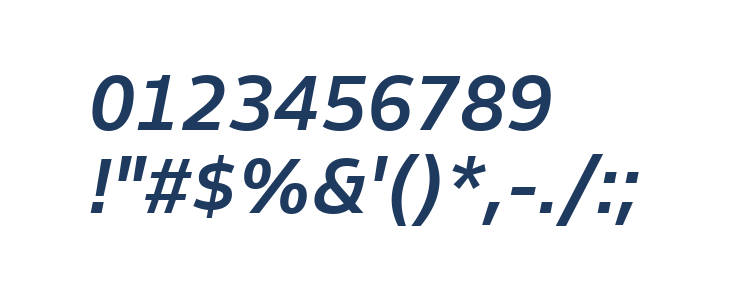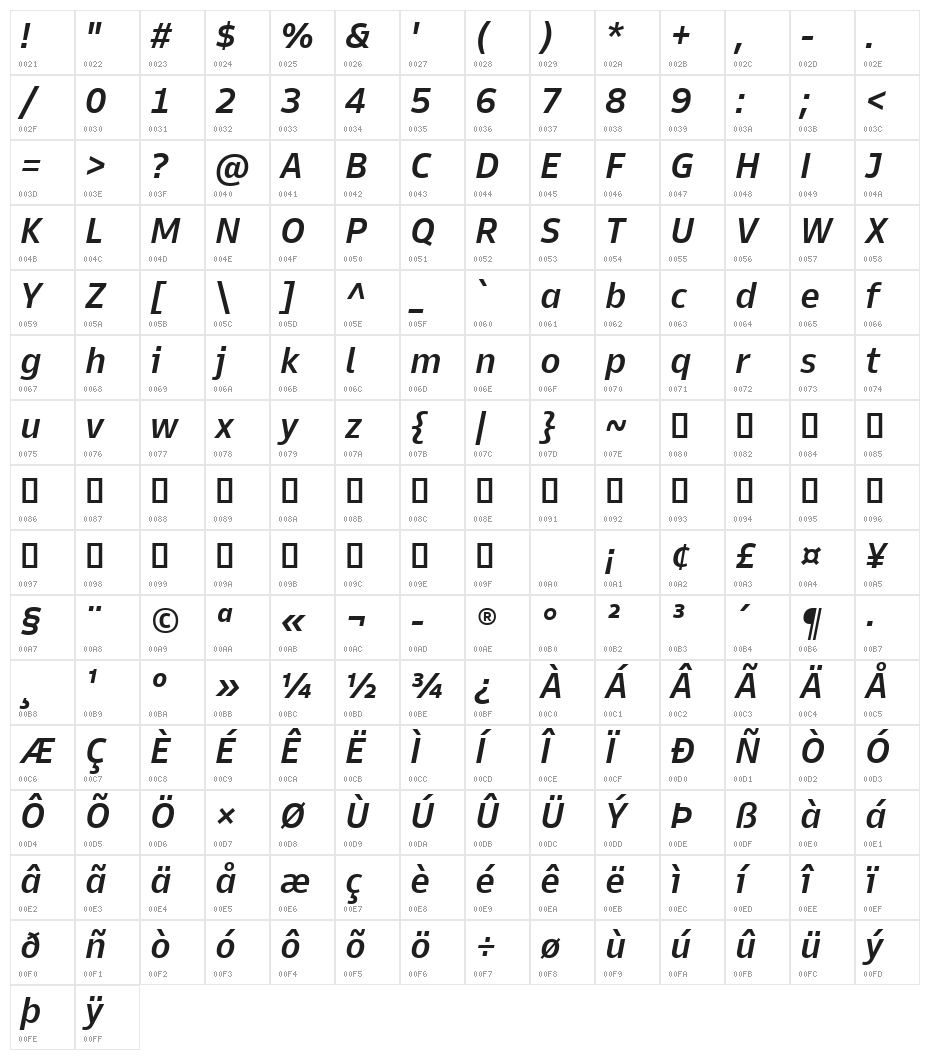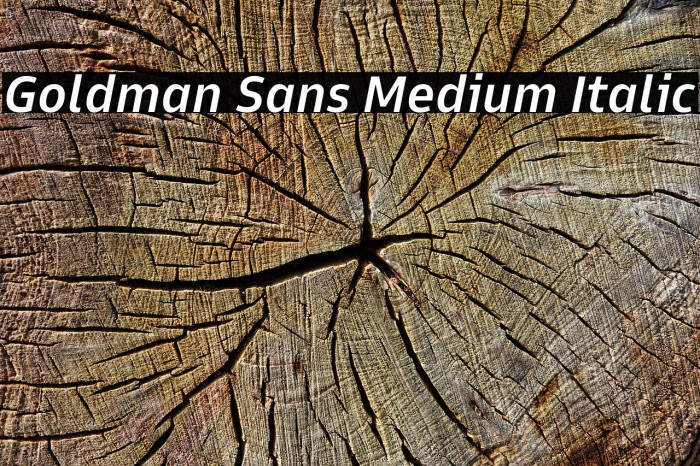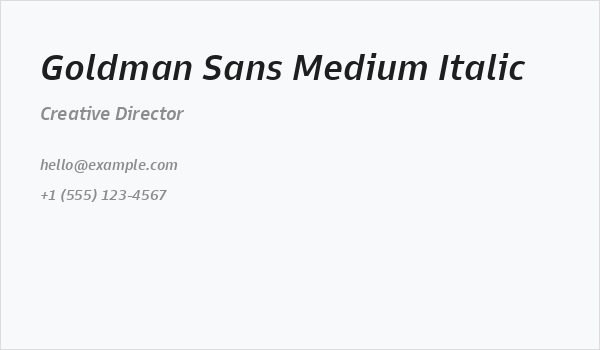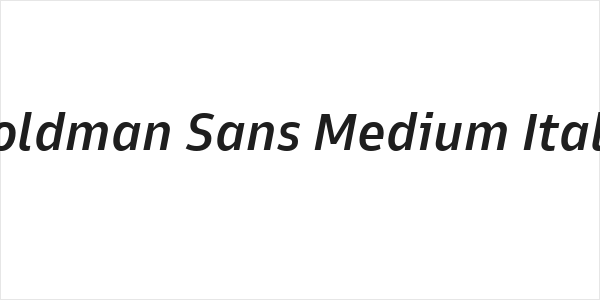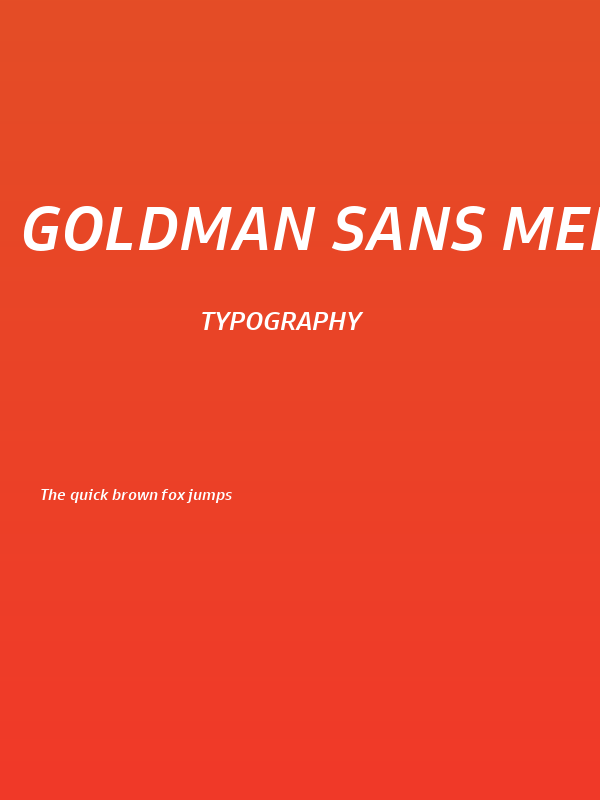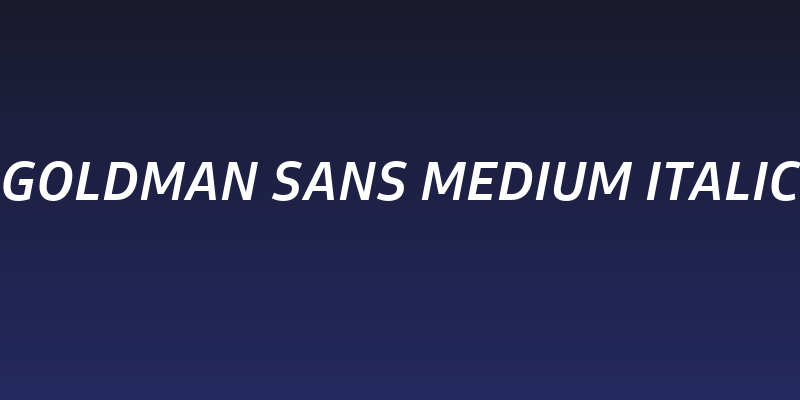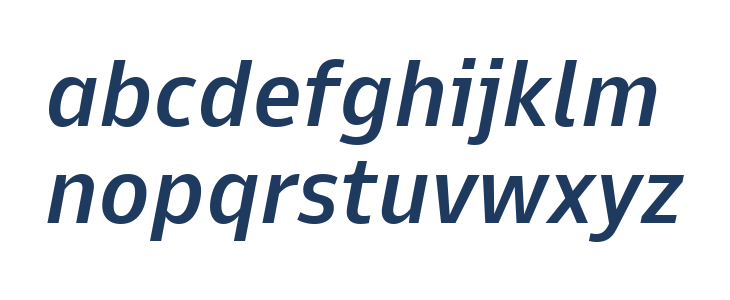
Goldman Sans Medium Italic Font
Goldman Sans Medium Italic Description
This font features a clean and modern sans-serif style with a medium weight and italicized form. The characters are slightly slanted, giving a dynamic and forward-moving appearance. The design is sleek and minimalistic, with uniform stroke widths that provide a consistent and professional look. The uppercase and lowercase letters are well-proportioned, and the numerals are clear and easy to read. Special characters are distinct and maintain the overall aesthetic of the font. The spacing between characters is normal, ensuring readability while maintaining a compact appearance.
| Proposed Projects | Ideal for corporate branding, digital interfaces, presentations, and modern advertising campaigns. |